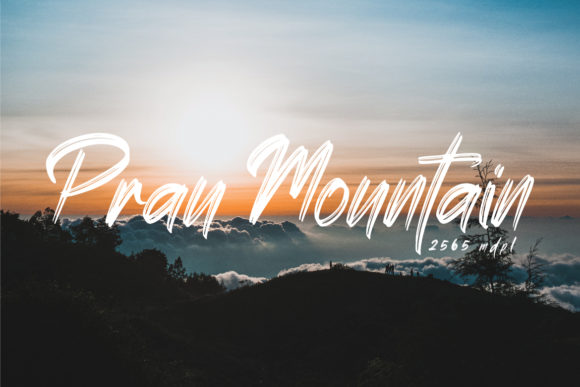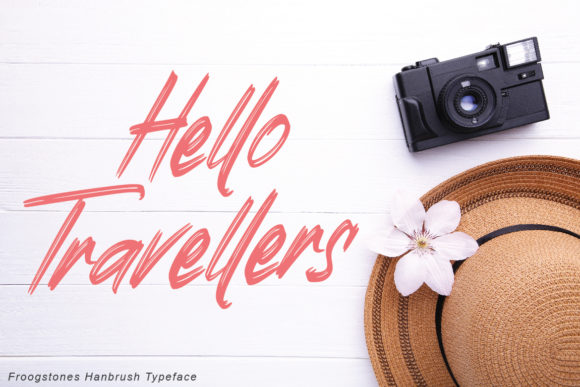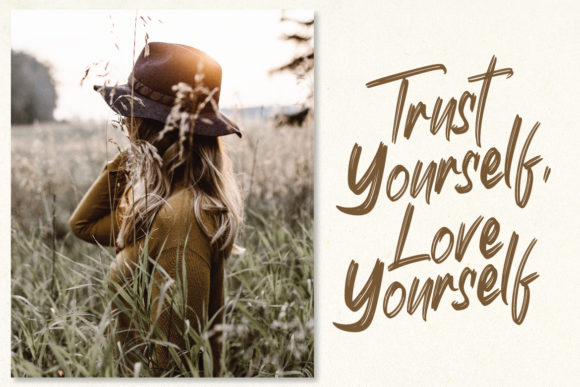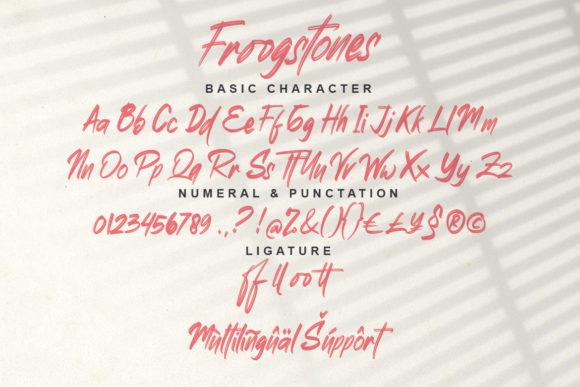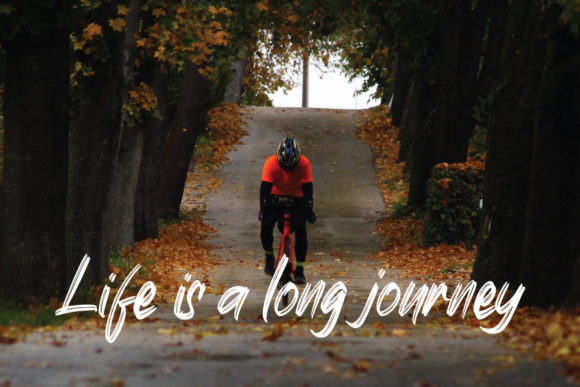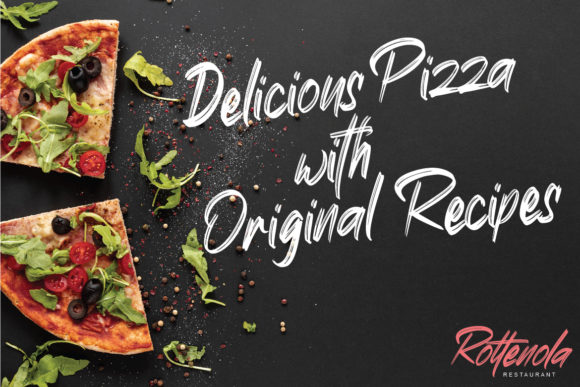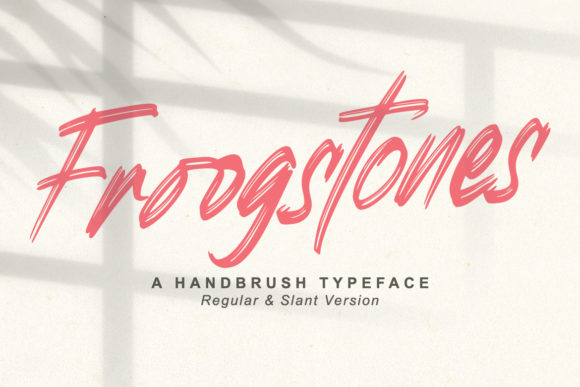
Froogstones Font: Add a Touch of Whimsy to Your Arts and Crafts
Froogstones is a stunning handwritten script font that has captured the hearts of designers and crafters alike. With its beautifully light lettering and charming feel, it’s the perfect addition to any arts and crafts project. In this article, we’ll dive into the world of Froogstones Font and explore how you can use it to elevate your creative endeavors.
The Characteristics of Froogstones Font
Froogstones Font is a gorgeously handwritten script with a unique, lighthearted feel. Its delicate lettering and whimsical curves make it an ideal choice for projects that require a touch of personality and charm. The font’s light weight and airy texture give it a sense of elegance, making it suitable for a wide range of applications, from crafting and DIY projects to digital designs and branding.
Uses for Froogstones Font
Froogstones Font is incredibly versatile and can be used in various creative projects, including:
• Arts and Crafts: Add a personal touch to your handmade cards, gift tags, and scrapbooking projects with Froogstones Font.
• Digital Designs: Use Froogstones Font in your digital designs, such as social media graphics, blog headers, and website branding, to add a touch of whimsy and personality.
• Branding: Incorporate Froogstones Font into your brand identity to create a unique and memorable visual experience.
• Paper Crafting: Froogstones Font is perfect for paper crafting projects, such as card making, journaling, and collage.
Tips for Using Froogstones Font
To get the most out of Froogstones Font, here are some tips to keep in mind:
• Pair it with bold fonts: Combine Froogstones Font with bold, contrasting fonts to create visual interest and hierarchy.
• Experiment with colors: Froogstones Font looks beautiful in a range of colors, from soft pastels to rich jewel tones. Experiment with different hues to find the perfect match for your project.
• Play with texture: Add texture to your design by layering Froogstones Font over backgrounds, patterns, or other design elements.
• Keep it simple: Don’t be afraid to use Froogstones Font on its own. Its delicate lettering and simple design make it a beautiful addition to any project.
Font Name Froogstones Font
Author Almeera Studio
Froogstones Font is a beautiful, handwritten script that can add a touch of whimsy and charm to any arts and crafts project. With its delicate lettering and light weight, it’s perfect for designers and crafters looking to create unique and eye-catching designs. Whether you’re working on a digital project or a handmade craft, Froogstones Font is sure to inspire your creativity and take your designs to the next level.
Get Creative with Froogstones Font
Ready to get creative with Froogstones Font? Here are some ideas to get you started:
• Create a handmade card: Use Froogstones Font to add a personal touch to your next handmade card.
• Design a social media graphic: Incorporate Froogstones Font into your social media graphics to add a touch of personality.
• Make a journal page: Use Froogstones Font to create a beautiful journal page or spread.
With Froogstones Font, the possibilities are endless. So why not give it a try and see how it can elevate your next creative project?